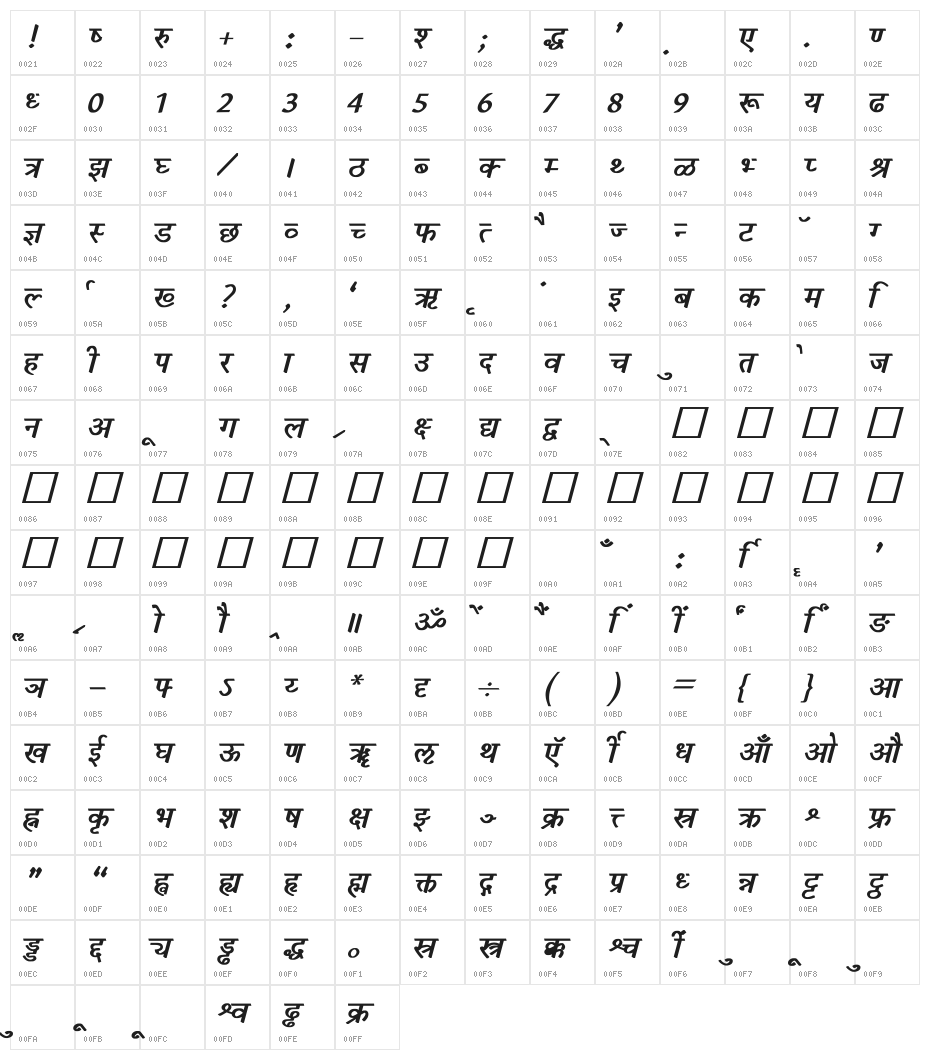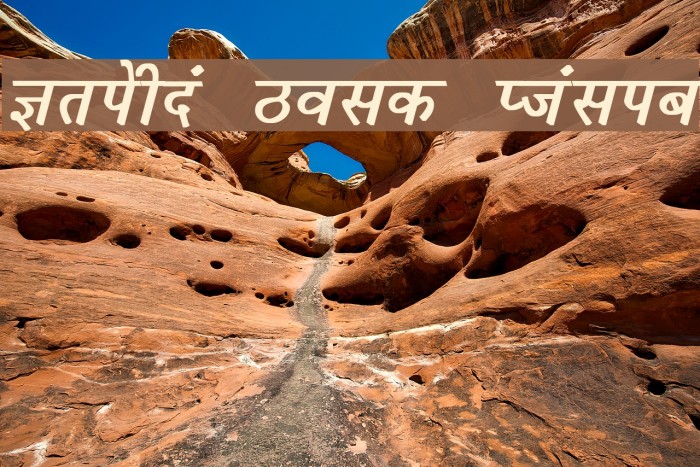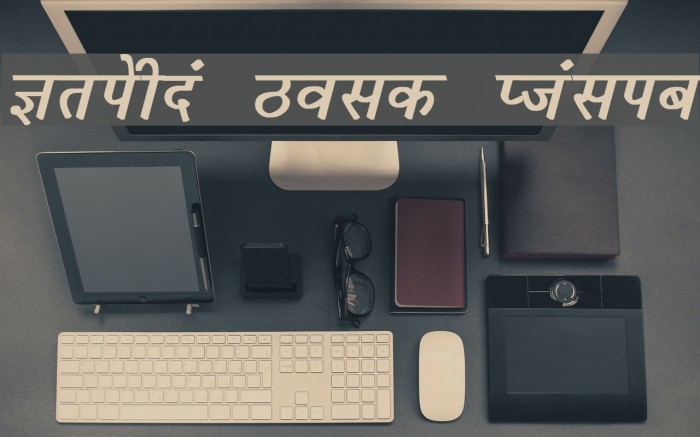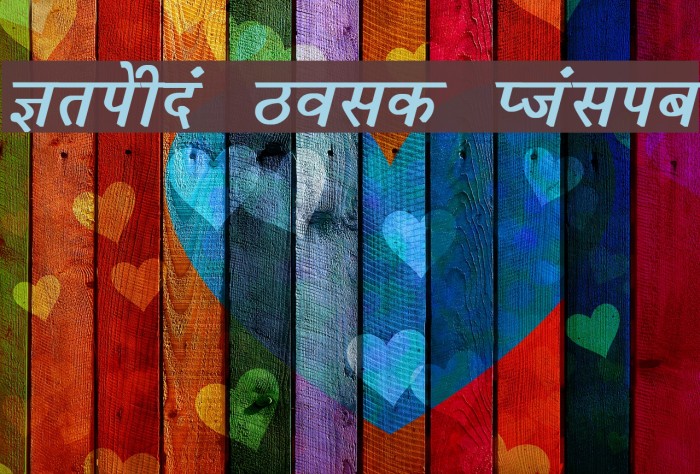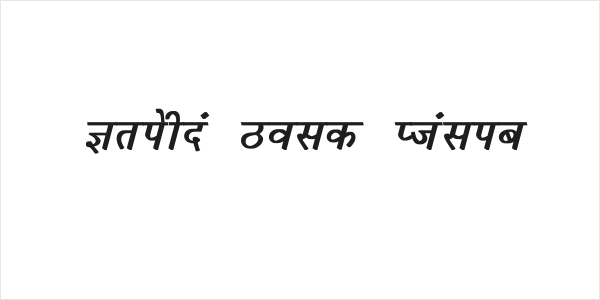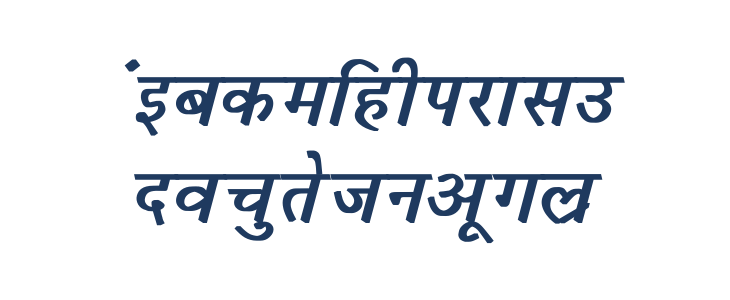
Krishna Bold Italic Font
Krishna Bold Italic Description
This font exhibits a bold and italicized style with a distinctive flair, characterized by its strong, confident strokes and dynamic slant. The characters are well-defined, with a noticeable emphasis on the horizontal lines, giving it a robust and assertive appearance. The font maintains a consistent weight throughout, ensuring readability while adding a touch of elegance. Its unique design is suitable for making a statement, with each letterform crafted to convey a sense of movement and energy. The numerals are equally bold, matching the overall aesthetic of the font, and the special characters are designed to complement the alphabetic characters seamlessly.
| Proposed Projects | Ideal for headlines, posters, branding materials, and any project requiring a bold, attention-grabbing typeface. |